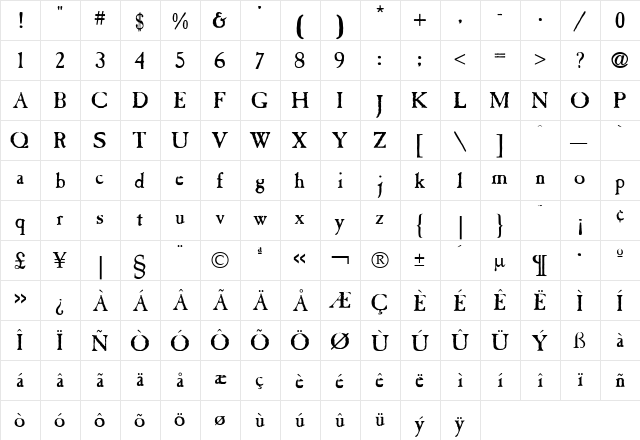
CasablancaAntique Regular
Design Context for CasablancaAntique Typeface
CasablancaAntique has the warm character of retro typography — evoking diners, record sleeves, and the golden age of print advertising.
Font Pairing: Combine CasablancaAntique with a simple slab or neutral sans — period-accurate companions reinforce the vintage feel without competing for attention.
Pro Tip: Use CasablancaAntique for headlines and pull quotes rather than body copy — its personality is best appreciated in short, focused bursts.